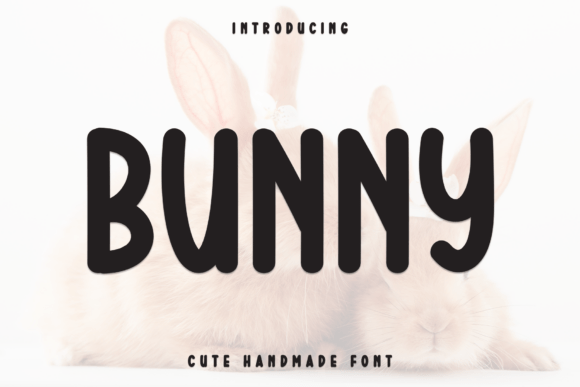
The Perfect Font for Whimsical Designs
Remember the feeling of browsing through a children’s bookstore, surrounded by vibrant colors and playful illustrations? That’s where the magic happens – and that’s exactly where the Bunny Font comes in. This charming display font is designed to evoke the same sense of wonder and joy, making it a perfect fit for family-oriented branding and children’s product marketing.
Bunny Font’s unique blend of organic silhouettes and thick, consistent strokes creates a visually appealing and approachable design. With its stable vertical axis and organized vertical rhythm, this font provides a professional balance that’s hard to resist. Whether you’re designing a logo, packaging, or digital header, Bunny Font is a valuable asset for designers looking to add a touch of whimsy to their projects.
Bunny Font Key Features
- Unique Characteristics: Bunny Font features a distinctive, hand-drawn design with a playful and whimsical feel, making it perfect for use in children’s books, magazines, and other publications that require a lighthearted tone.
- Character Set: Bunny Font includes a comprehensive character set, including uppercase and lowercase letters, numbers, punctuation marks, and special characters, making it suitable for use in a wide range of languages.
Bunny Font Review
Overall, I think the Bunny Font is a fun and quirky addition to any design project. Here’s what I think works well:
- ✨ Unique character designs: The Bunny Font features adorable, hand-drawn characters that are sure to bring a smile to your face.
- ✨ Playful font styles: The font comes in a range of styles, from bold and playful to whimsical and cursive.
- ✨ Good for children’s content: The Bunny Font is perfect for kids’ books, apps, and other content aimed at young readers.
However, I do have some concerns:
- ⚠️ Limited font weights: While the font styles are playful, there are only a few weights to choose from, which may limit its versatility.
- ⚠️ Not ideal for serious content: The Bunny Font’s lighthearted nature may not be suitable for more formal or serious content.
- ⚠️ Limited international support: The font may not support non-English characters, which could be a problem for global content.
Overall, I think the Bunny Font is a great choice for designers who want to add a touch of whimsy to their projects. Just be aware of its limitations and use it accordingly.
Tips for Getting the Most Out of Bunny Font
Use Bunny Font for whimsical and playful designs.
Pair it with bright colors and bold graphics for maximum impact.
Use Bunny Font for children’s book covers, party invitations, and social media graphics.
Alternatives to Bunny Font
Great Vibes is a fun, cursive font perfect for creating a playful and carefree atmosphere. It’s ideal for use in children’s books, advertising, and social media graphics. Great Vibes has a similar whimsical feel to Bunny Font but with a more elegant and refined touch.
Curlz Font
Curlz is a decorative font that features a mix of cursive and script styles. It’s suitable for use in creative projects, such as party invitations, wedding decorations, and promotional materials. Curlz has a more dramatic flair compared to Bunny Font, making it a great choice for adding a touch of luxury and sophistication.
Pacifico is a beautiful, elegant font that’s perfect for use in designs that require a touch of sophistication and refinement. It’s ideal for use in wedding invitations, business cards, and other formal materials. Pacifico has a more polished and refined feel compared to Bunny Font, making it a great choice for designers who want to create a sense of luxury and elegance.